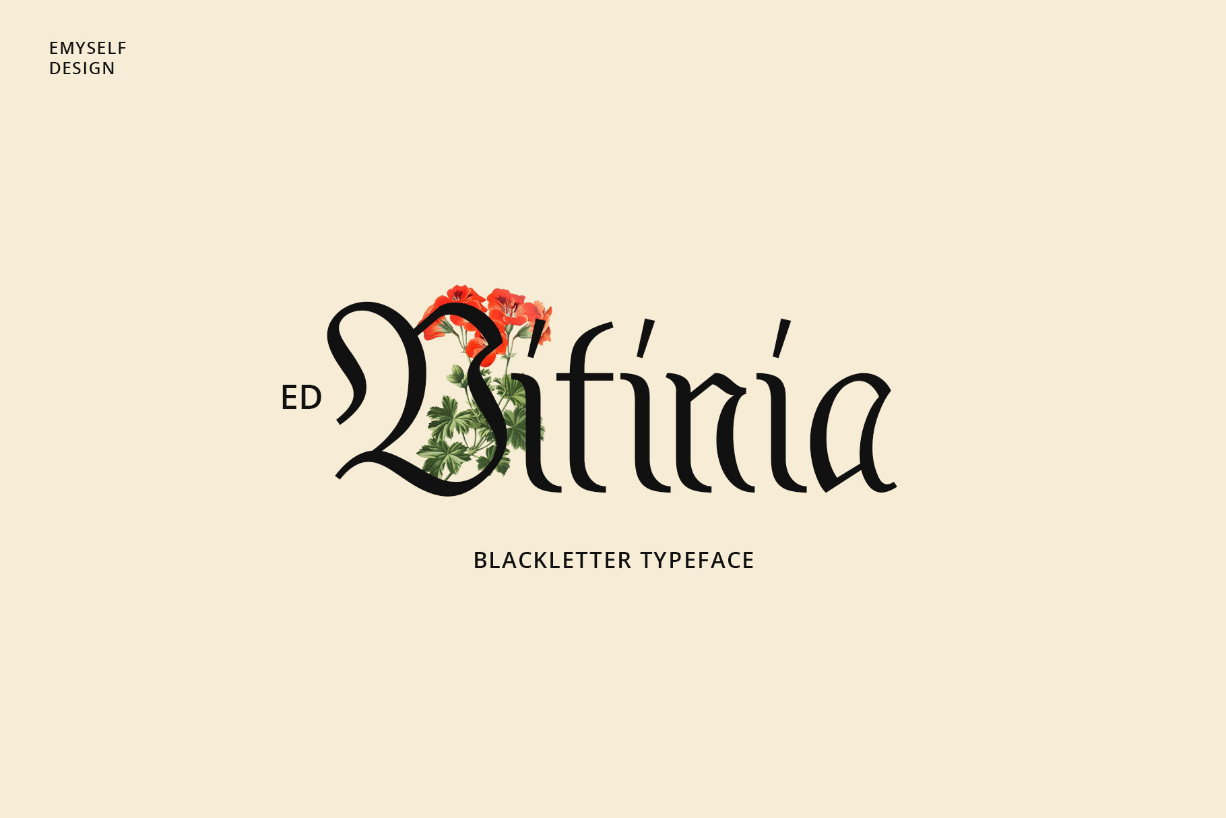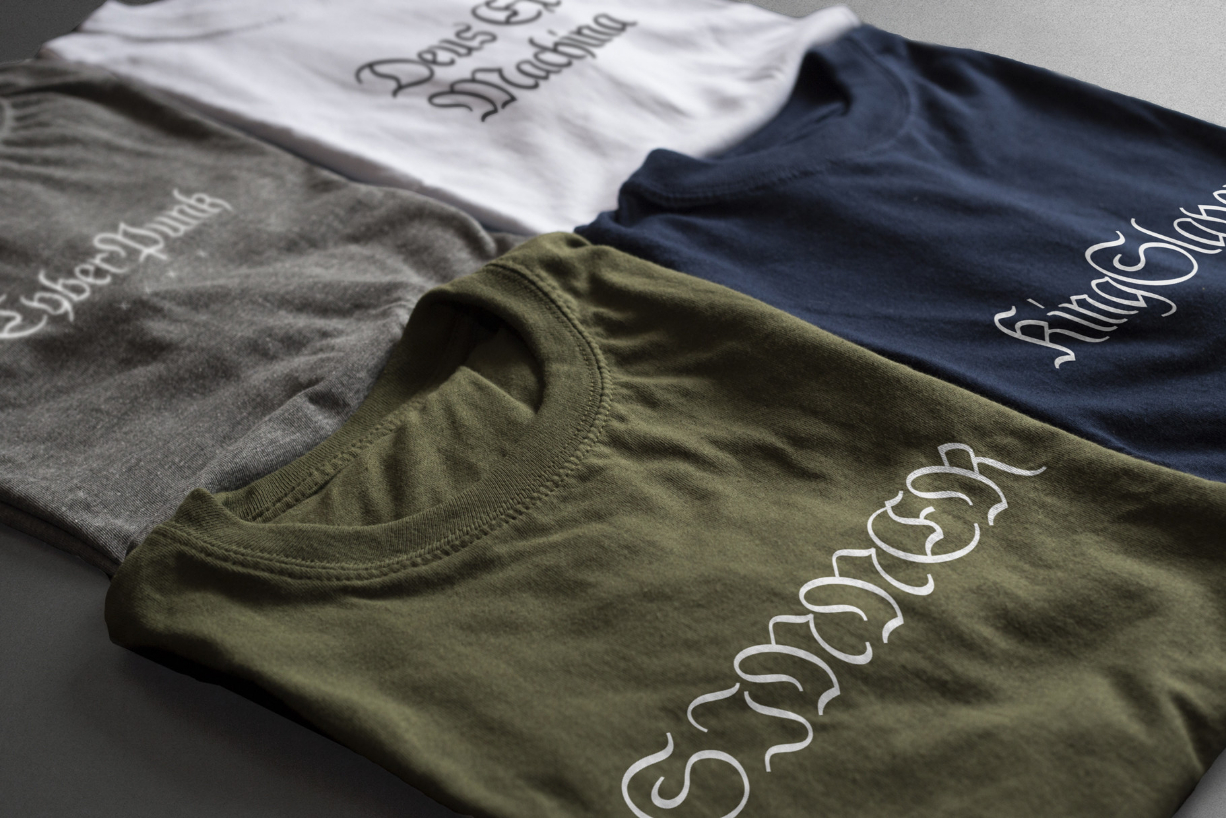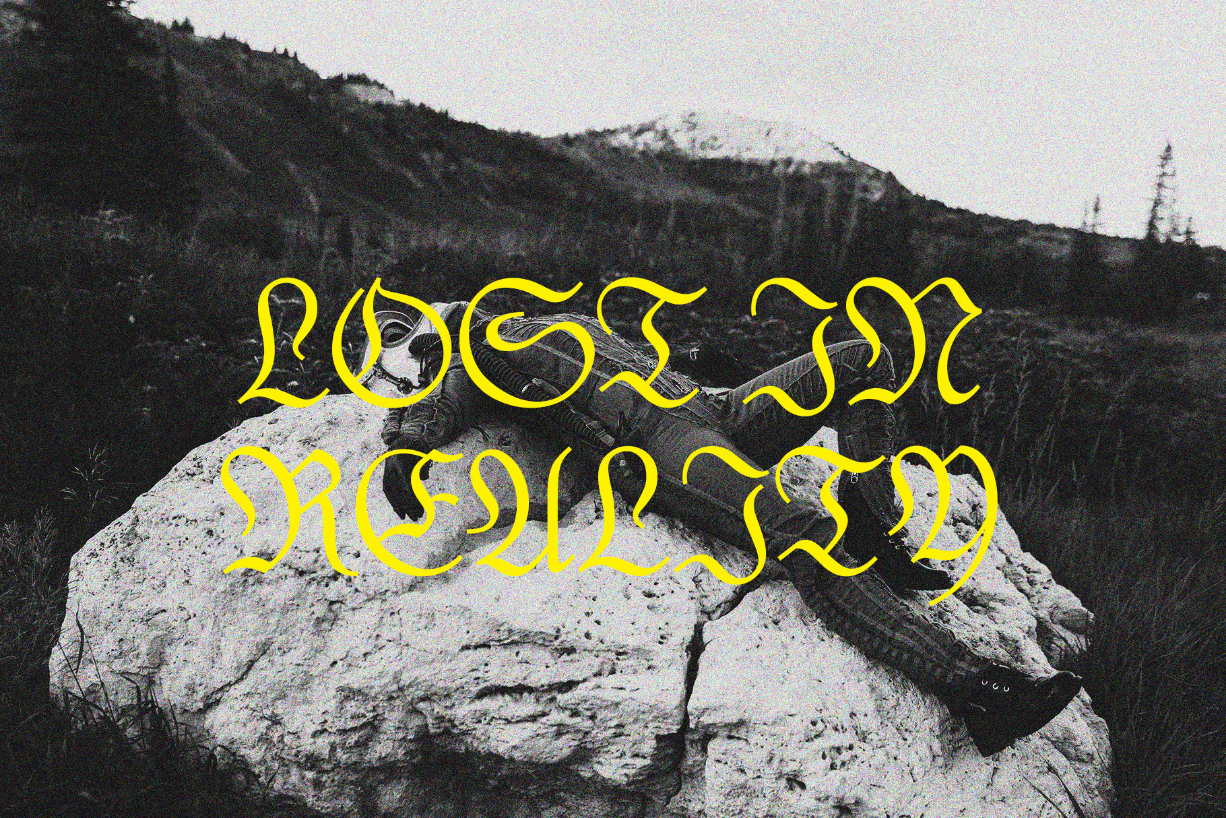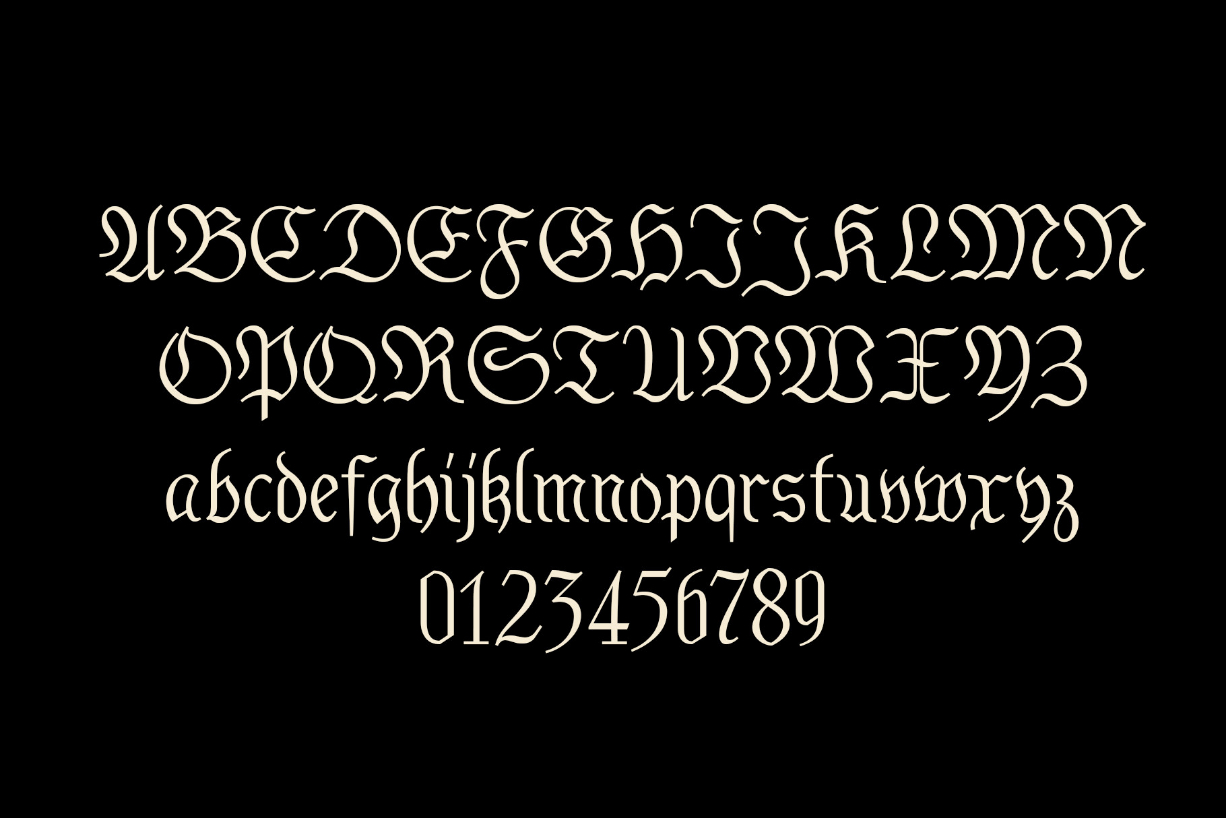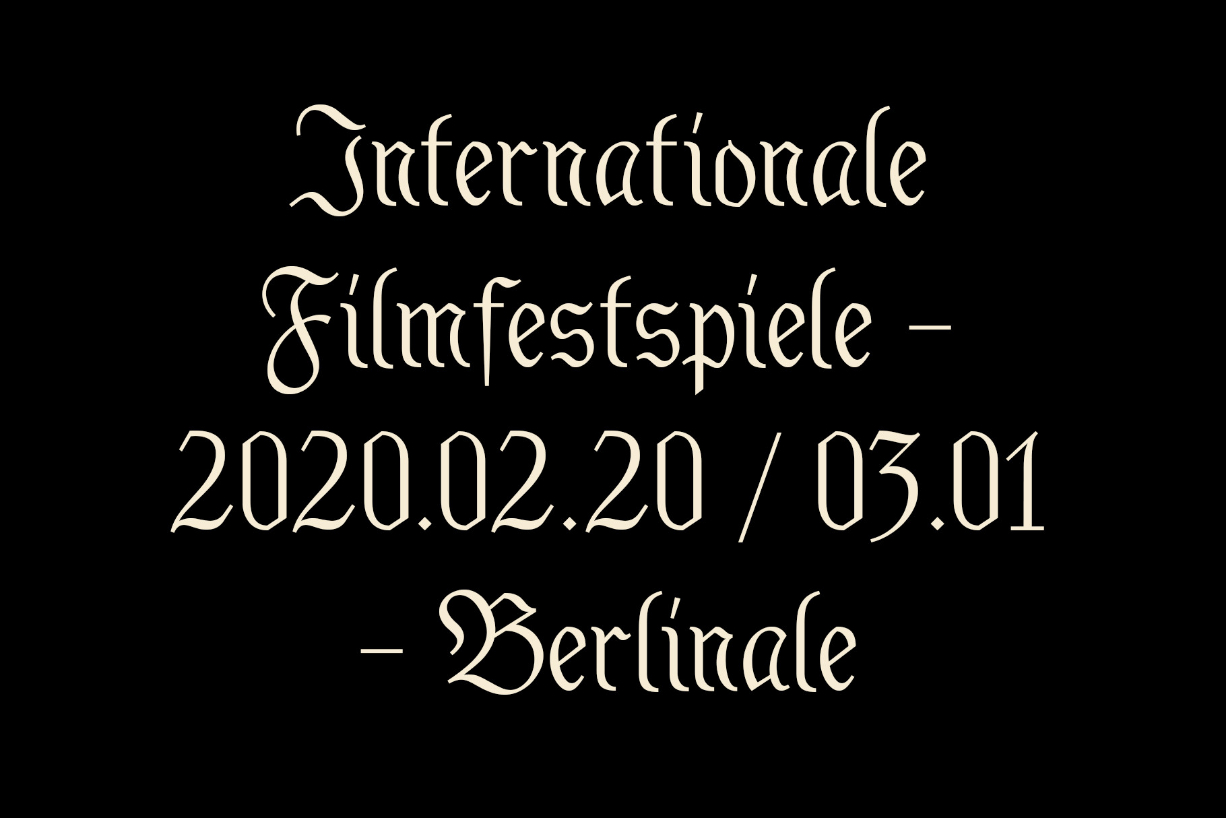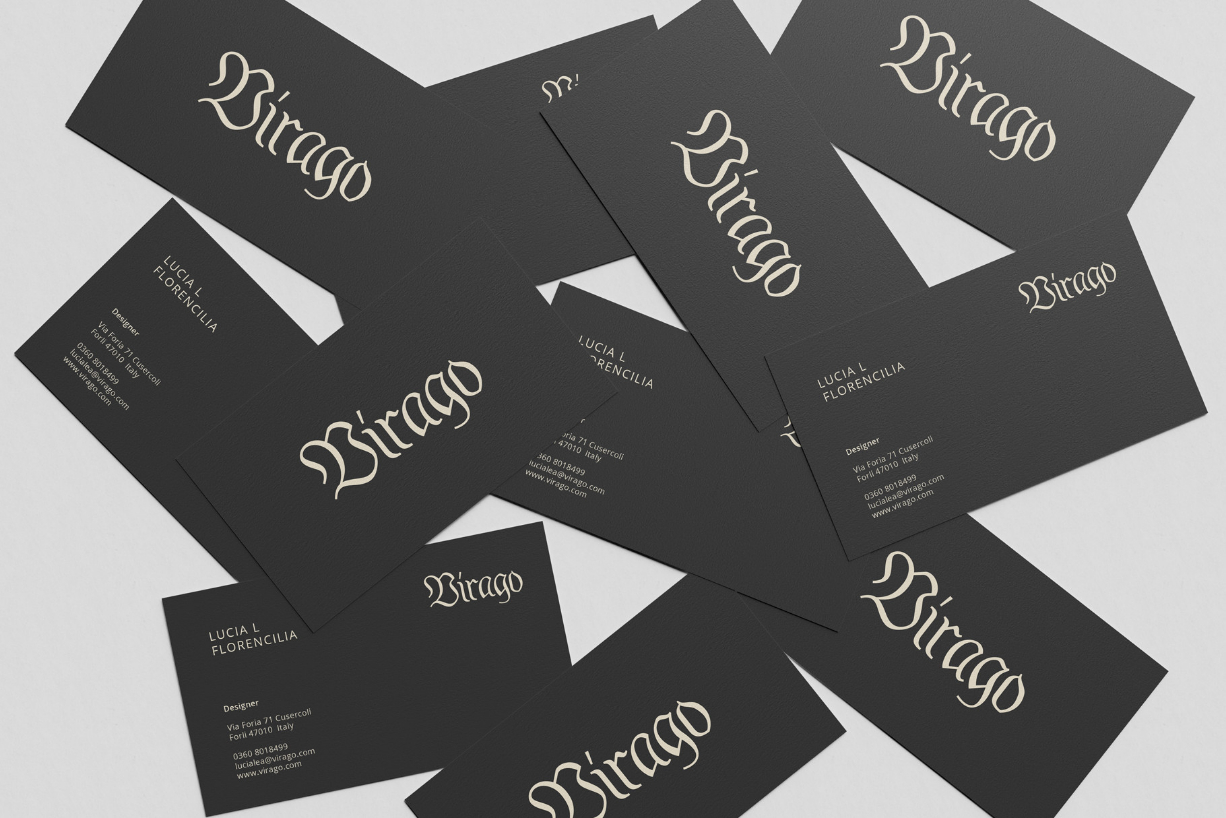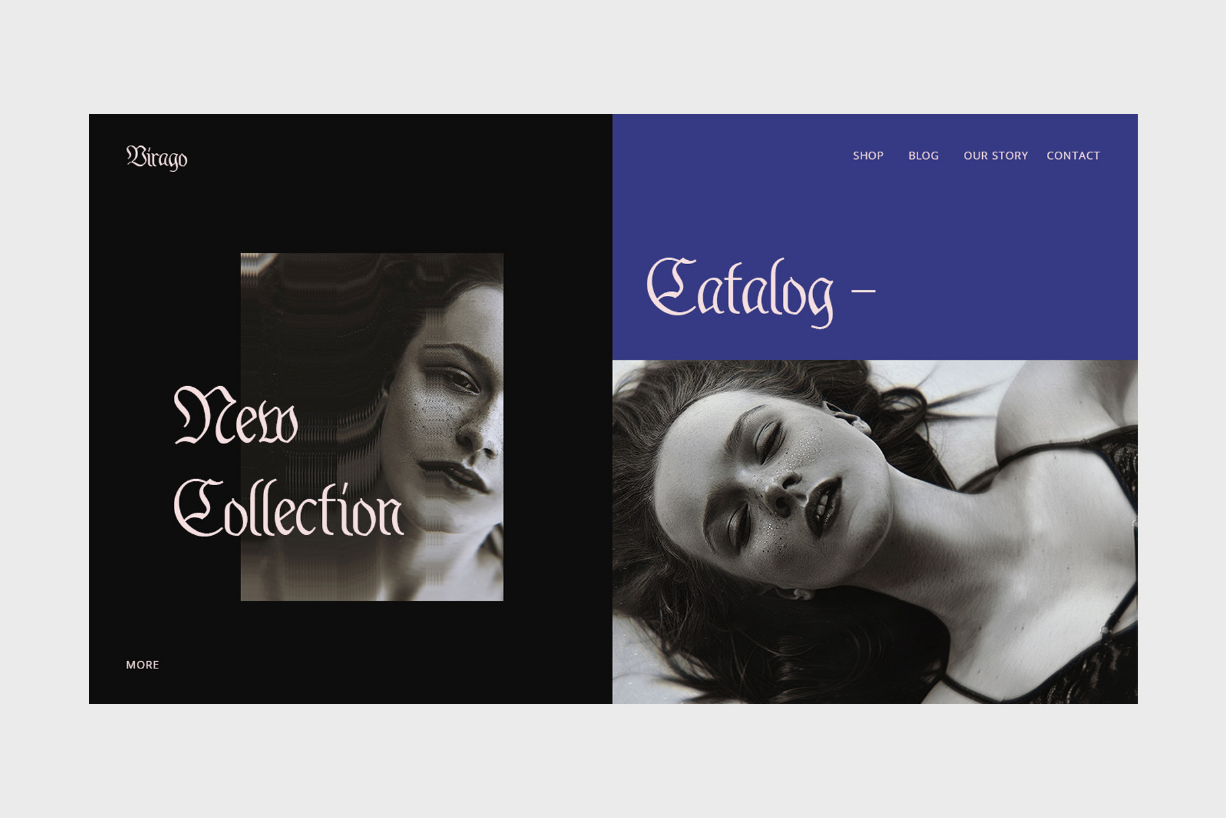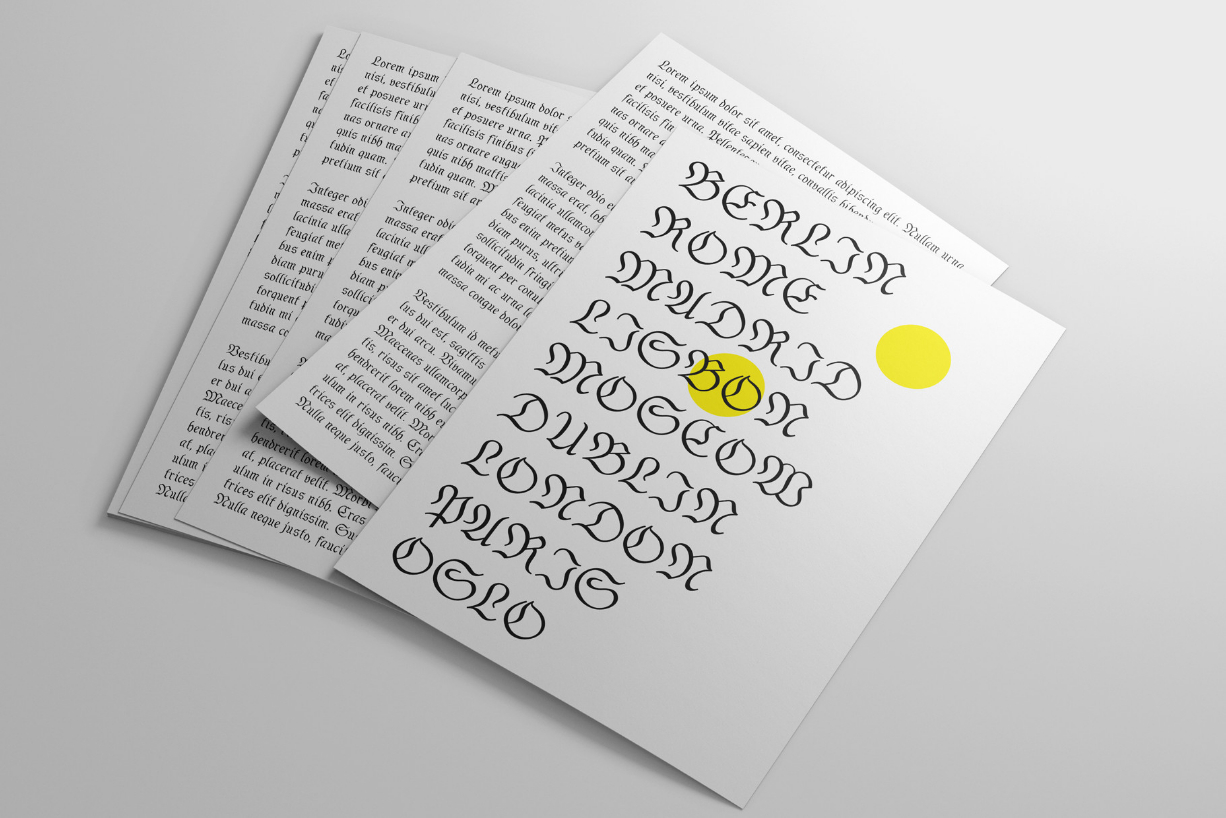
ED Vitinia Font
ED Vitinia is a gothic styled, uniquely designed blackletter font. It has a classy, elegant and modern look that can be used for logos, branding, invitations, stationery, wedding designs, social media posts, and much more!